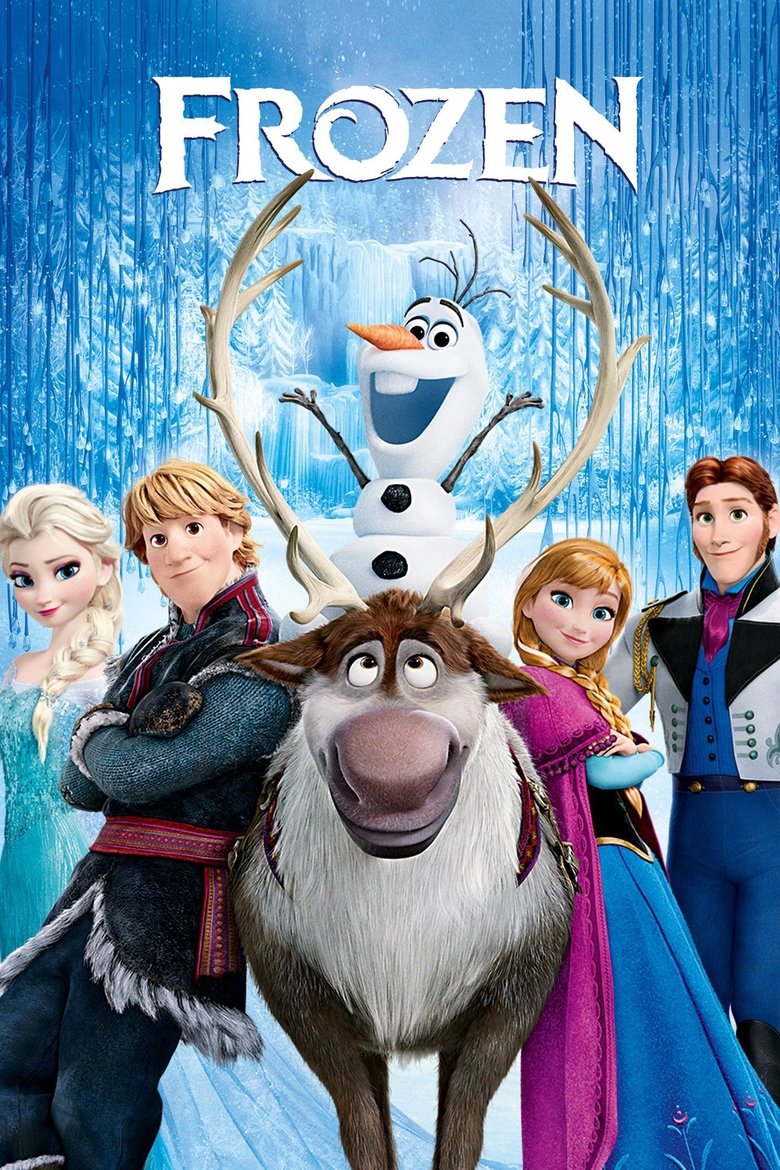
About the Frozen font
Frozen's title is a crystalline, icy serif. Cinzel recreates that frosted, fairy-tale sparkle for free.
The original Frozen logo uses custom lettering. This generator recreates the look with Cinzel — a free, open-license font you can style and download.